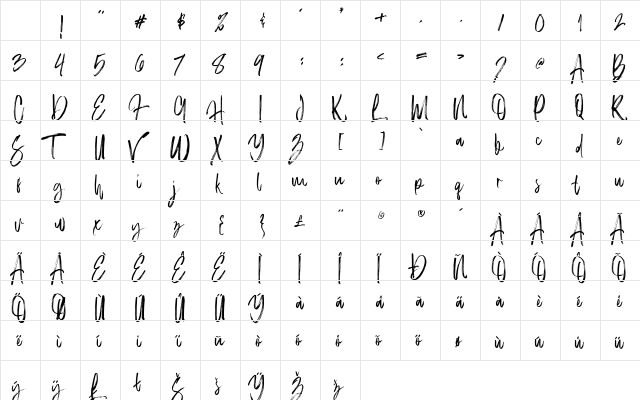
Complete The Black Hat Regular glyph index. Displaying only characters natively supported by The Black Hat Regular font.
The Black Hat is a composed and adaptable typeface that performs quietly and consistently across a wide range of design contexts.